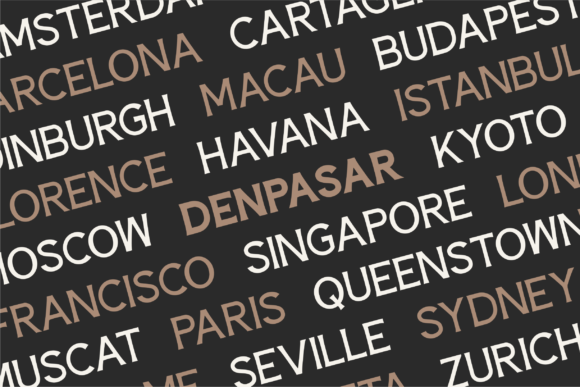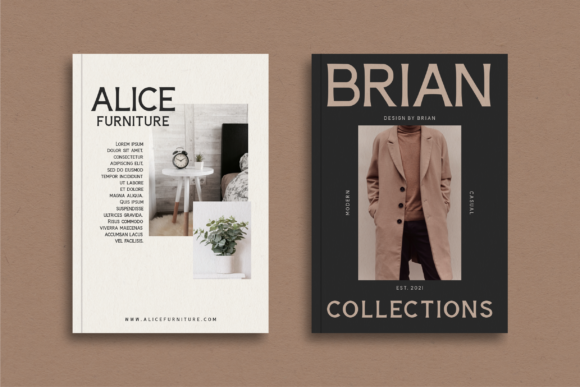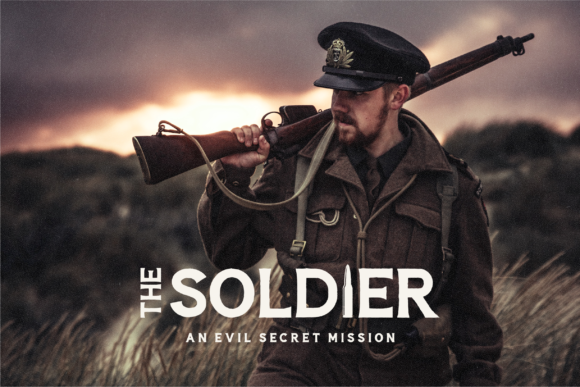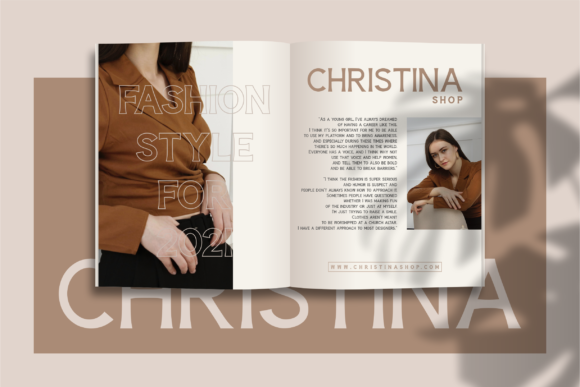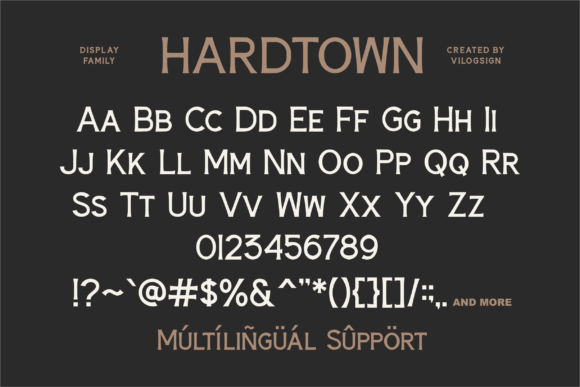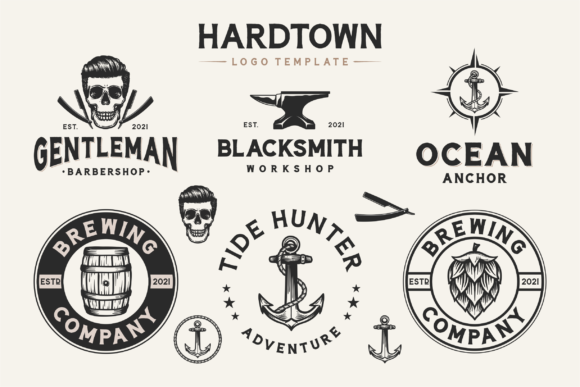
Introducing Hardtown Font: A Versatile Sans Serif Font Family
Are you a designer or crafter looking for a font that can elevate your creative projects? Look no further than Hardtown Font, a sans serif font family that offers a range of styles and multilingual support. In this article, we’ll explore the features and benefits of Hardtown Font, and how it can help you take your designs to the next level.
What is Hardtown Font?
Hardtown Font is a sans serif font family that is designed to be versatile and adaptable. It comes in four variations: Rustic, Normal, Bold, and Italic, giving you a range of options to suit your design needs. Whether you’re creating a logo, poster, magazine, or packaging, Hardtown Font is a great choice.
Multilingual Support
One of the standout features of Hardtown Font is its multilingual support. This means that you can use the font to create designs in a variety of languages, making it perfect for global brands or projects that require multiple language support. Whether you’re designing for English, Spanish, French, or any other language, Hardtown Font has got you covered.
Variations and Styles
Hardtown Font comes in four variations: Rustic, Normal, Bold, and Italic. Each variation offers a unique take on the font, allowing you to add depth and interest to your designs.
- Rustic: The Rustic variation has a distressed, worn look that adds a touch of grit and texture to your designs.
- Normal: The Normal variation is a clean and crisp sans serif font that is perfect for body text and headlines.
- Bold: The Bold variation is a heavy, impactful font that is great for making a statement.
- Italic: The Italic variation adds a touch of elegance and sophistication to your designs.
Use Cases for Hardtown Font
Hardtown Font is a versatile font that can be used in a variety of design projects. Here are some ideas to get you started:
- Branding: Use Hardtown Font to create a logo or brand identity that is modern and professional.
- Posters: Create eye-catching posters with Hardtown Font’s bold and italic variations.
- Magazines: Use Hardtown Font as a body text font or for headlines to add a touch of sophistication.
- Film and Video: Use Hardtown Font to create titles and credits that are modern and stylish.
- Packaging: Use Hardtown Font to create labels and packaging that is eye-catching and professional.
Benefits of Using Hardtown Font
So why choose Hardtown Font for your design projects? Here are just a few benefits:
- Versatility: Hardtown Font comes in four variations, making it a versatile font that can be used in a range of design projects.
- Multilingual Support: With multilingual support, you can use Hardtown Font to create designs in a variety of languages.
- Easy to Read: Hardtown Font is a clean and crisp sans serif font that is easy to read, even at small sizes.
- High-Quality: Hardtown Font is a high-quality font that is designed to look great in any design project.
| Font Name | Hardtown Font |
| Author | Vilogsign |
In conclusion, Hardtown Font is a versatile and adaptable sans serif font family that is perfect for designers and crafters. With its range of variations, multilingual support, and high-quality design, Hardtown Font is a great choice for any design project. Whether you’re creating a logo, poster, magazine, or packaging, Hardtown Font is a font that can help you take your designs to the next level.